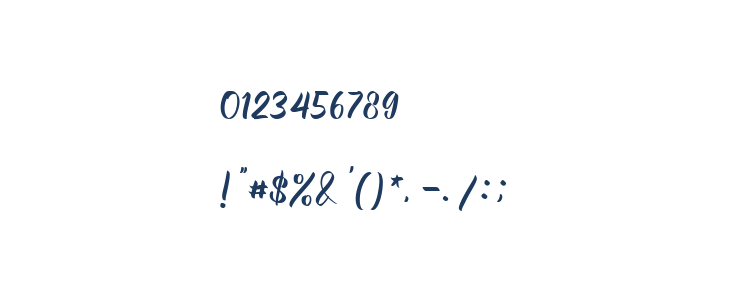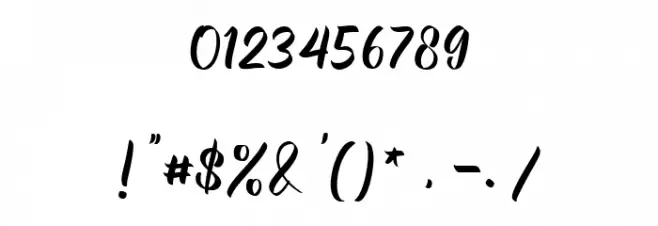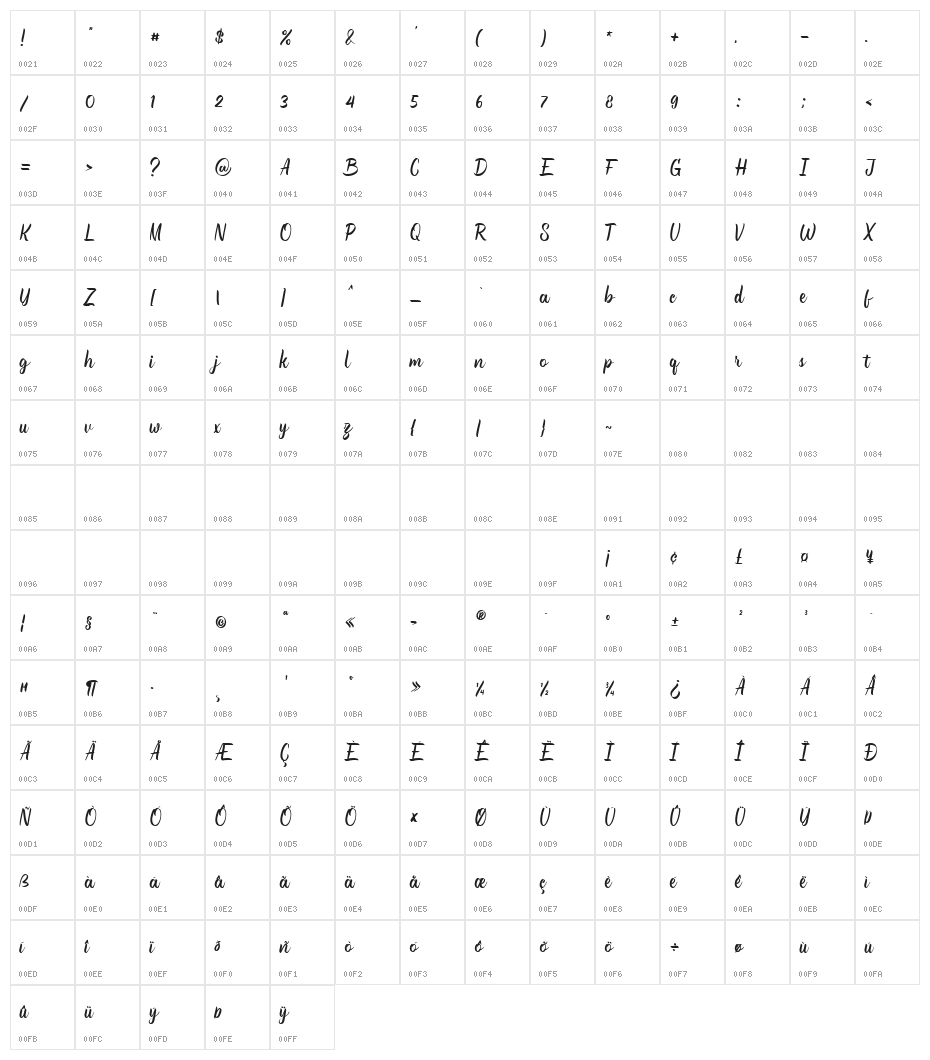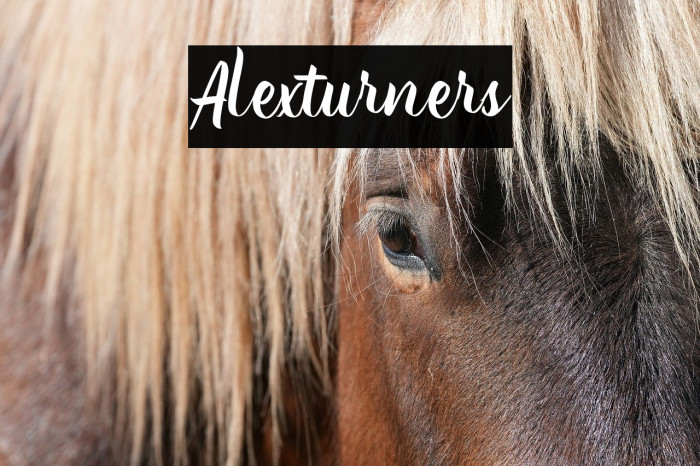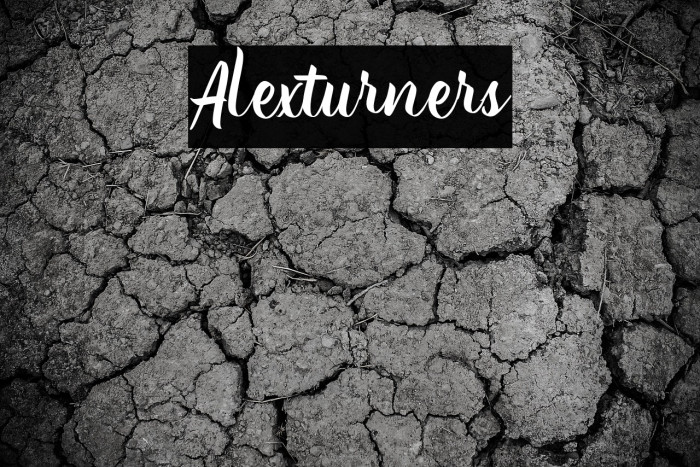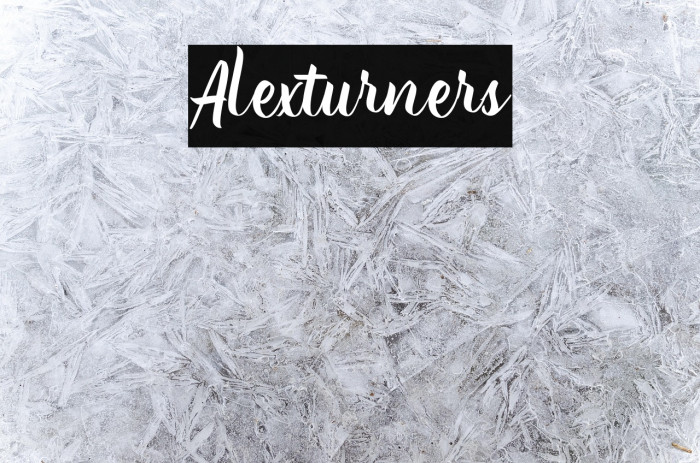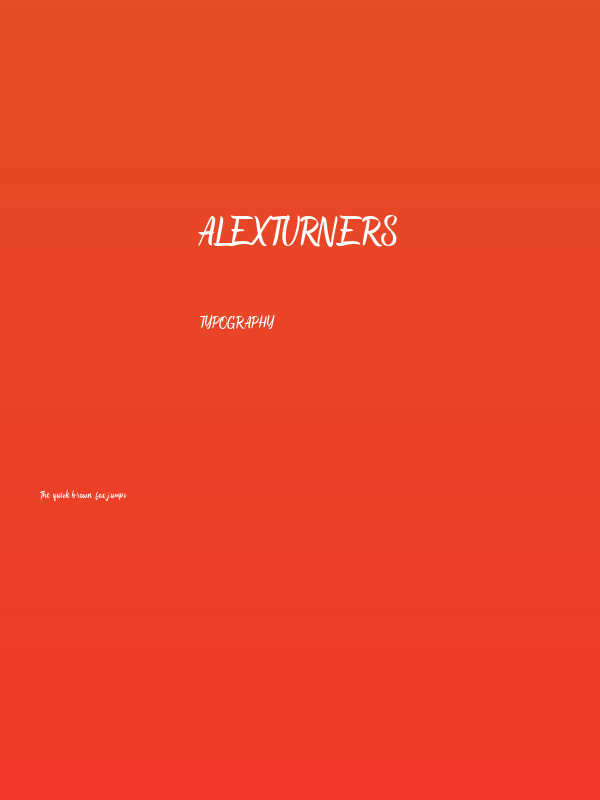
Alexturners Font
Alexturners Description
This font exudes a modern and elegant script style, characterized by its fluid and cursive letterforms. The uppercase letters are bold and slightly slanted, giving a sense of movement and sophistication. The lowercase letters maintain a consistent flow, with smooth connections between characters, enhancing readability. The numerals are clear and well-proportioned, matching the overall aesthetic of the font. Special characters are thoughtfully designed, maintaining the script's elegance. This font is perfect for projects that require a touch of class and creativity.